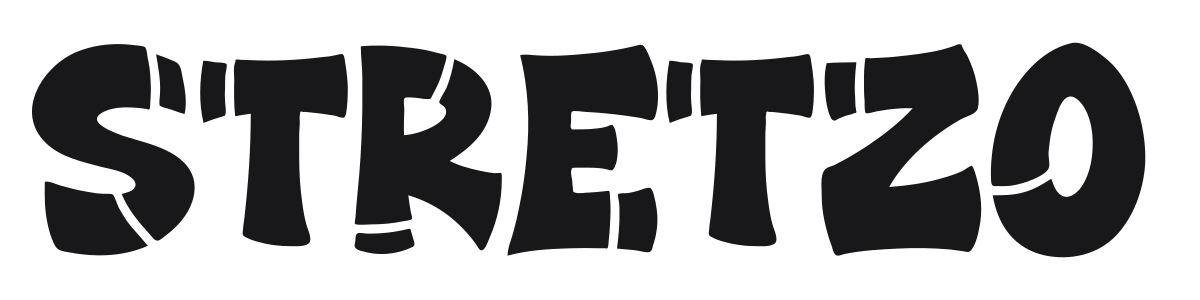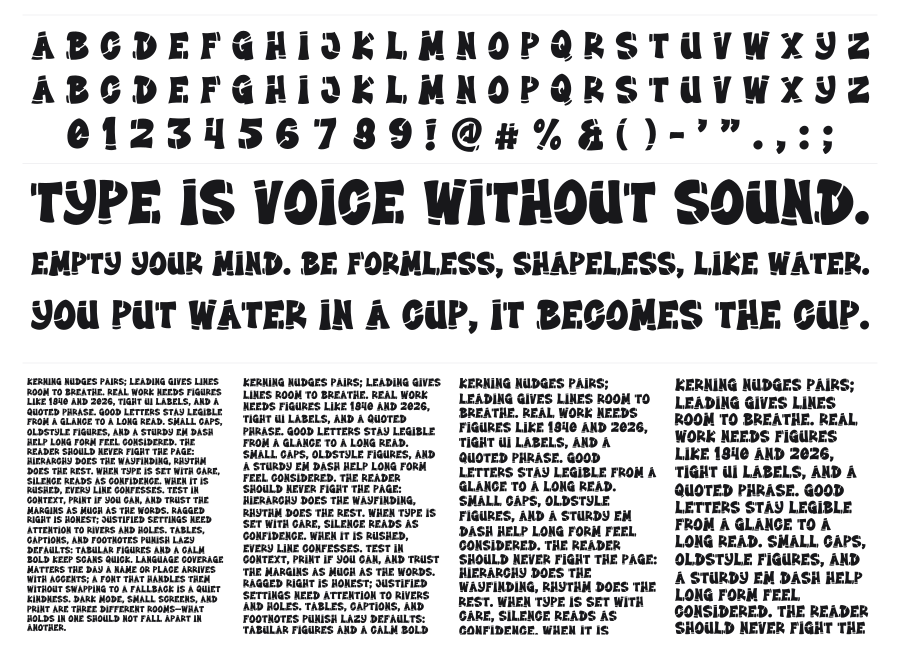
Stretzo
Strezo is a heavy display font where bold, chunky characters are sliced apart by irregular white cuts that give each letter a cracked, distressed look. The effect reads as handmade and raw, somewhere between a screen-print gone wrong and a stencil left in the rain. It brings a lot of noise to headlines, posters, and brand work that wants attitude.